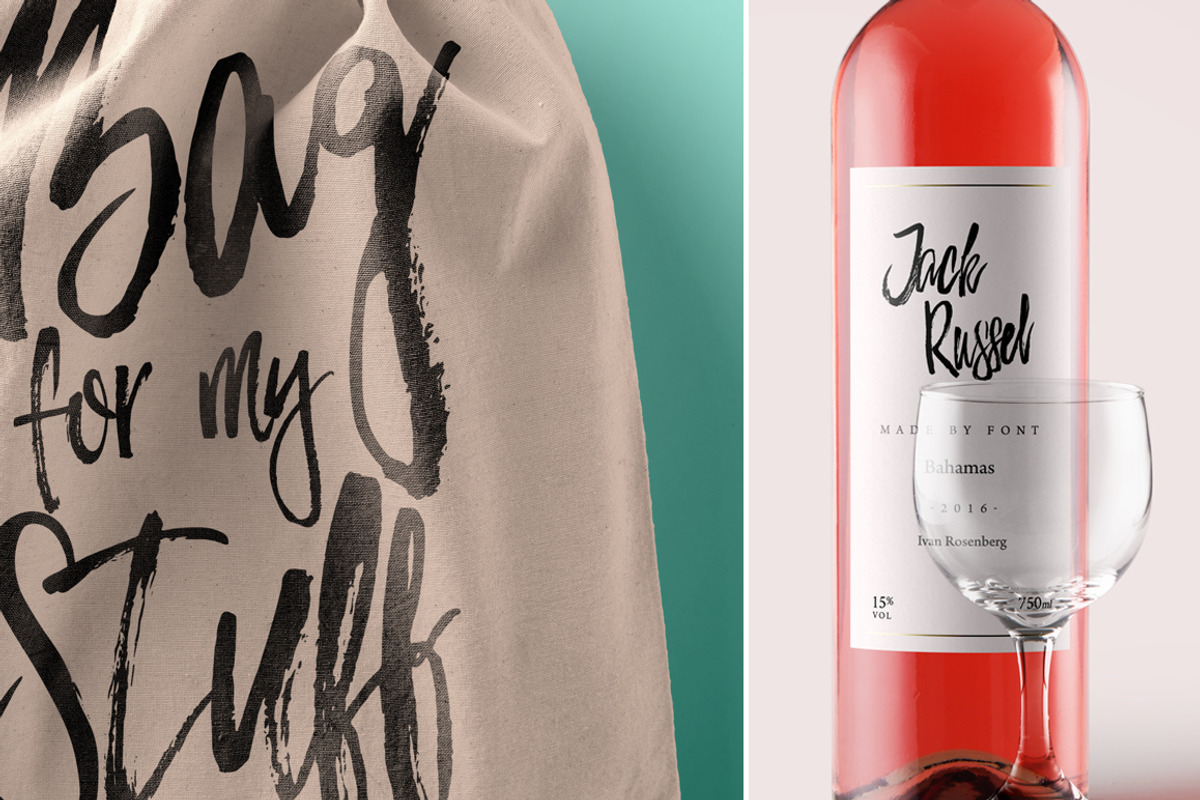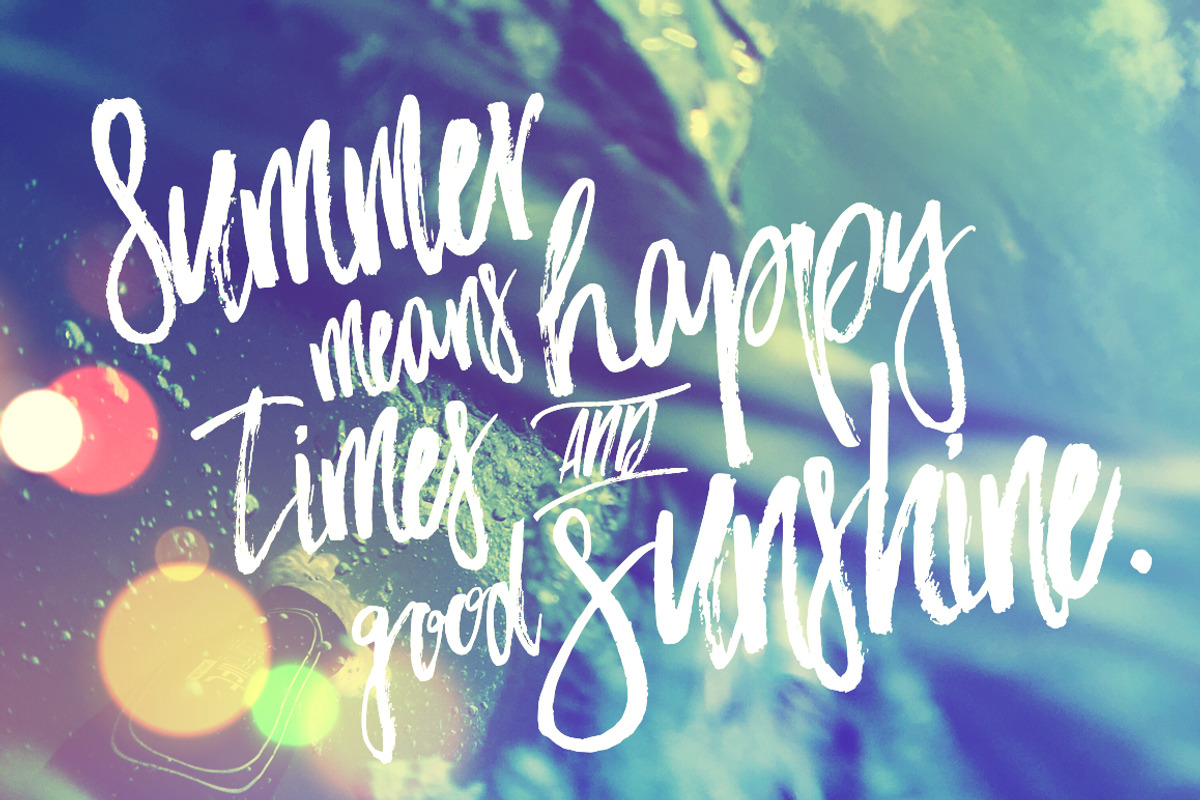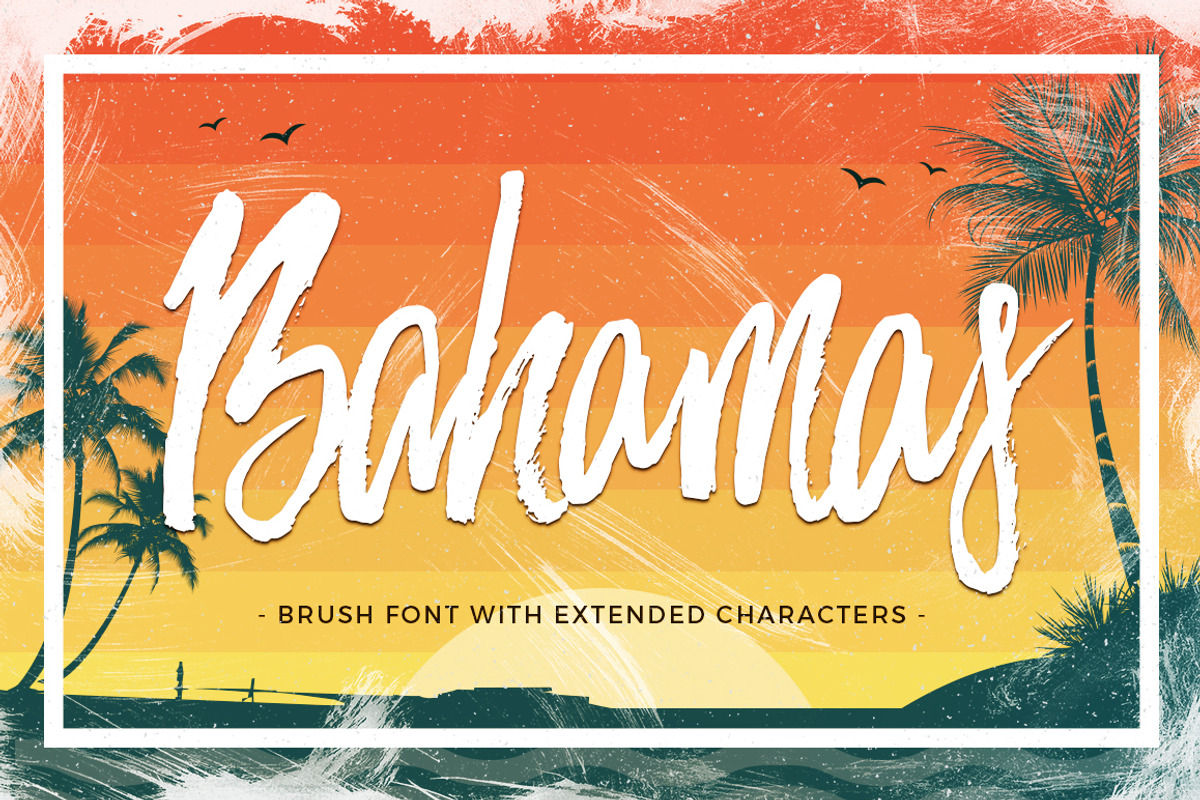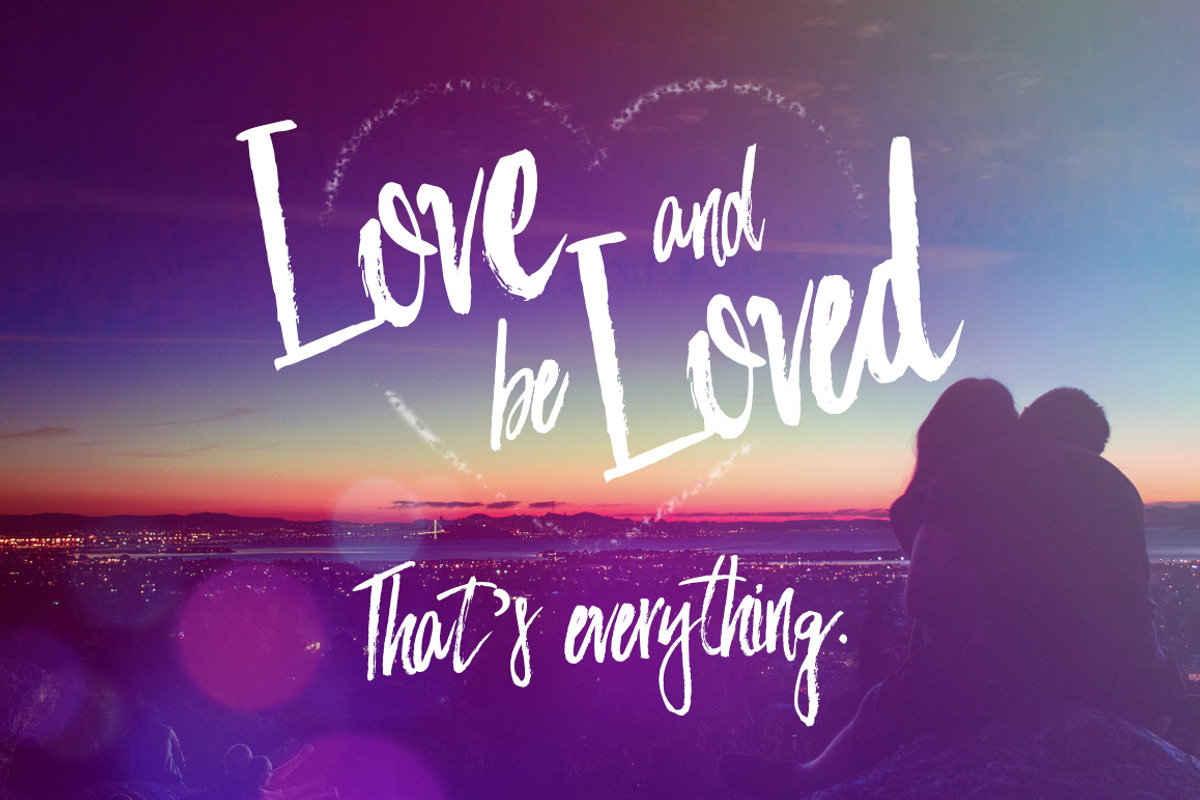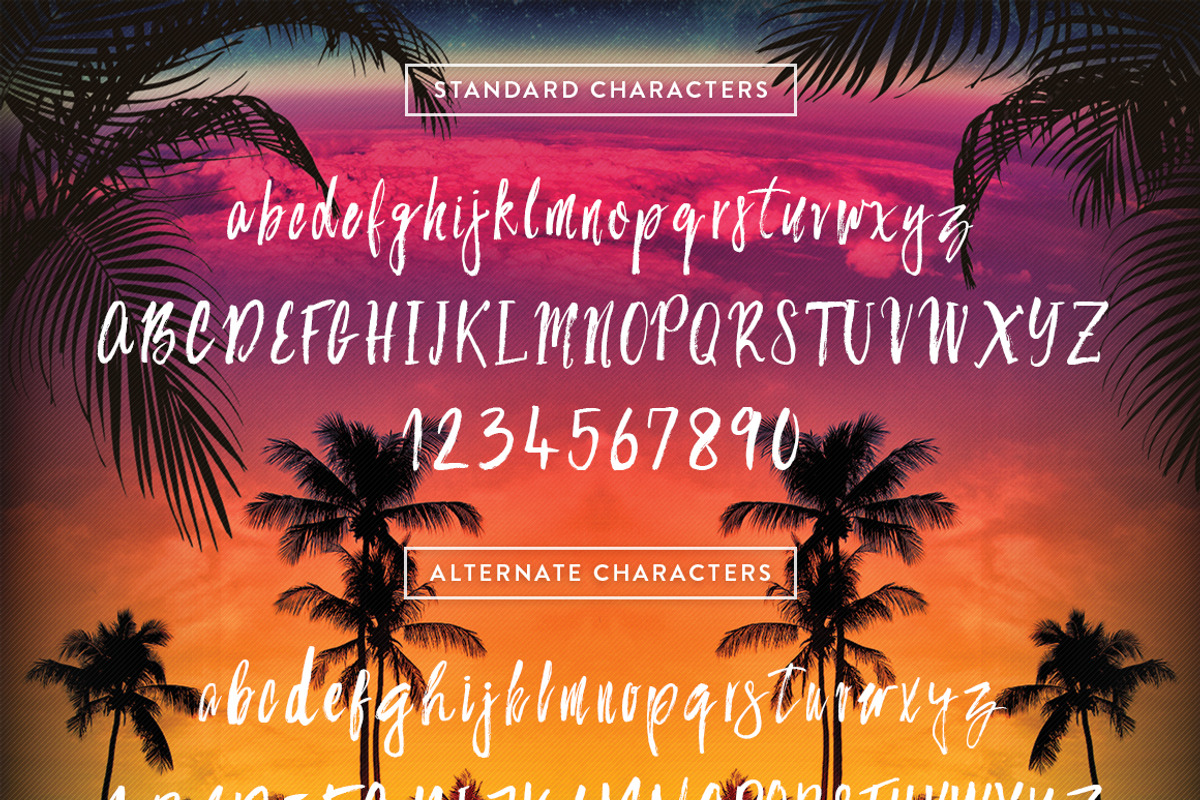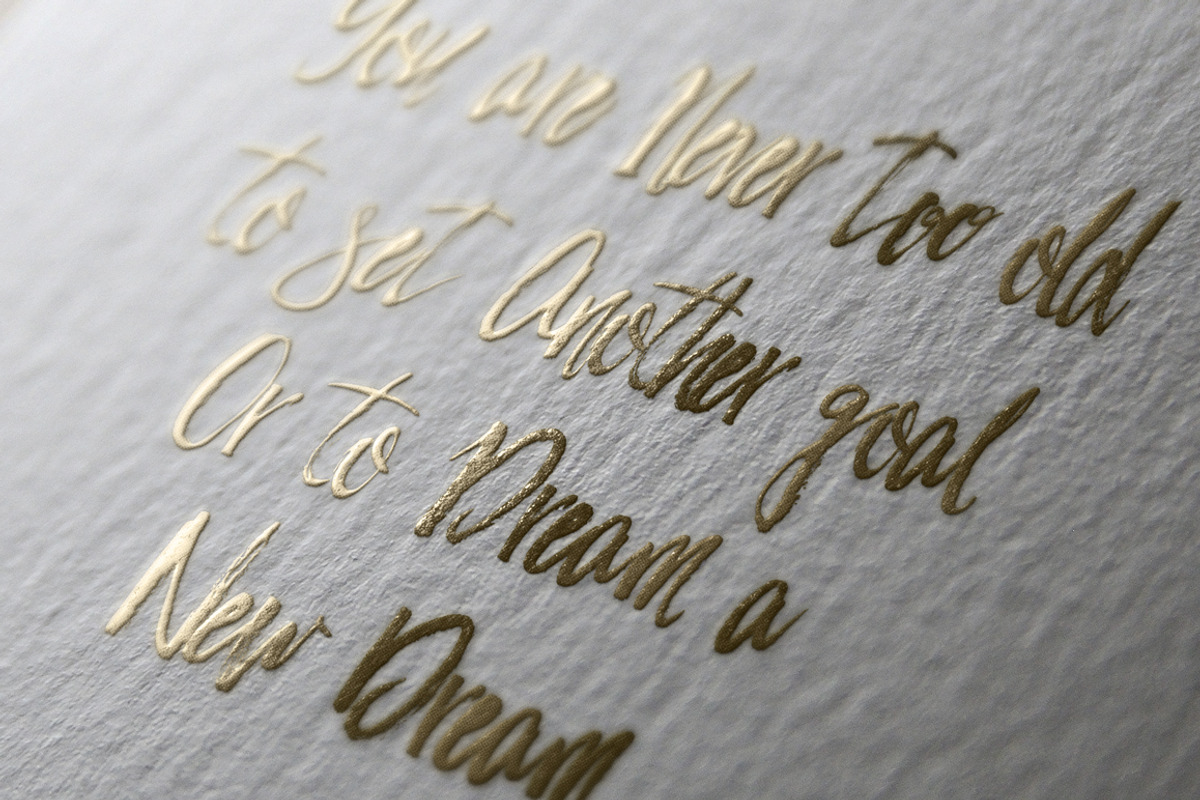
Bahamas Brush Font
Bahamas Brush Font is a hand brushed font with multilingual support. Is ideal for restaurant menus, greeting cards, invitations, weddings, headers and many more.
This brush font comes with a complete set of lowercase and uppercase alternates, ligatures and and multilingual support.